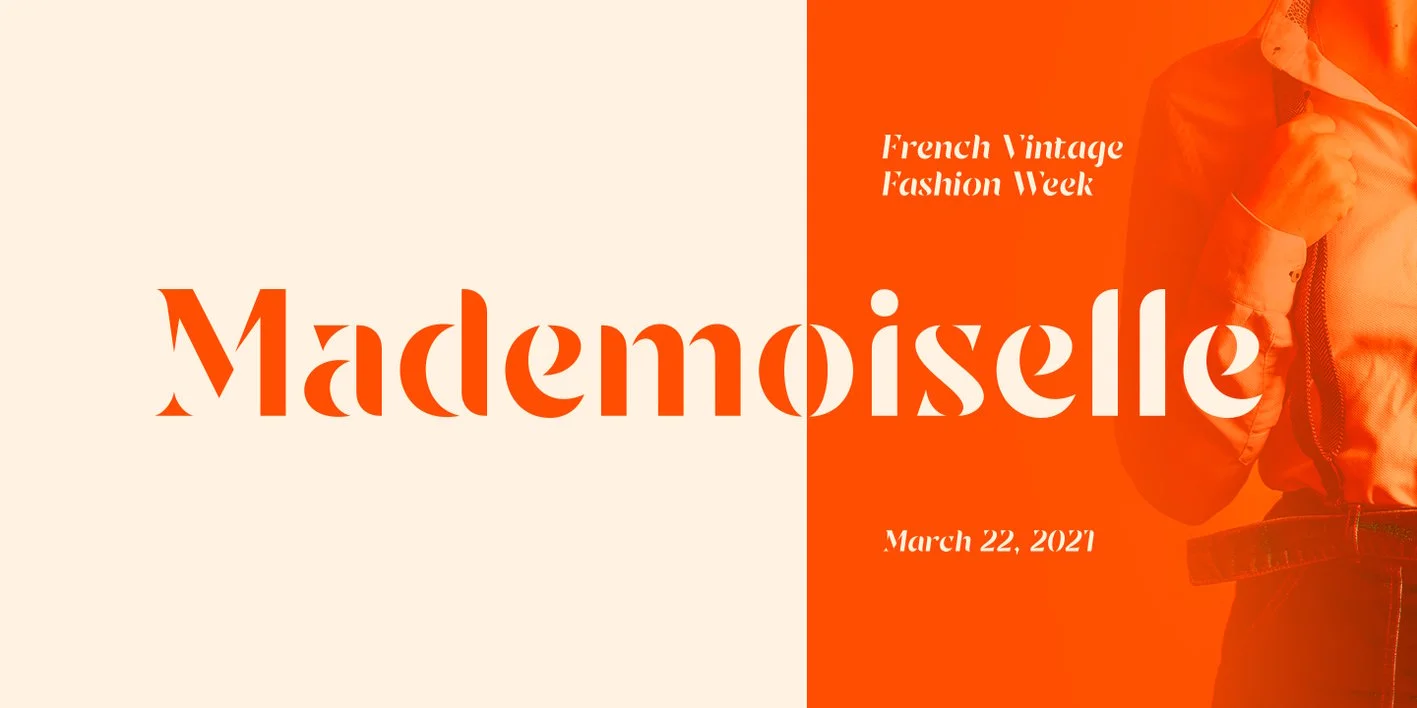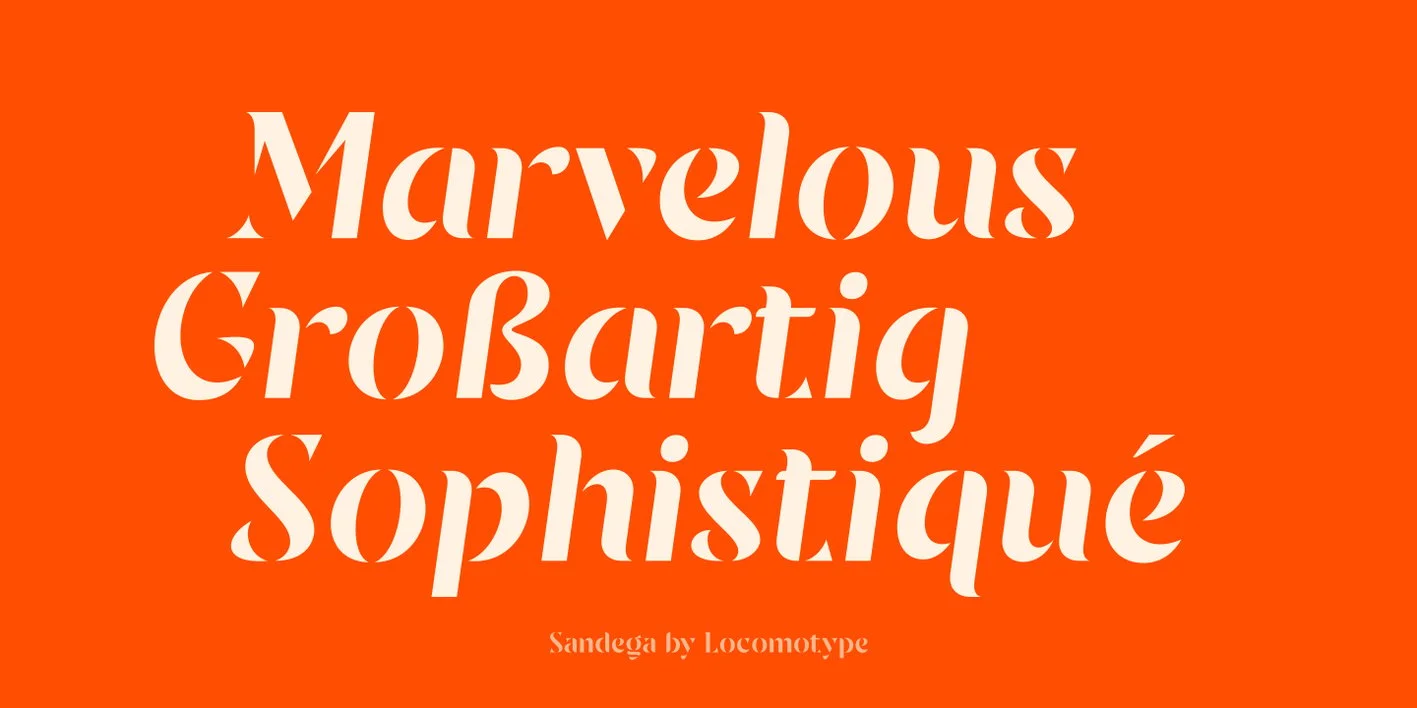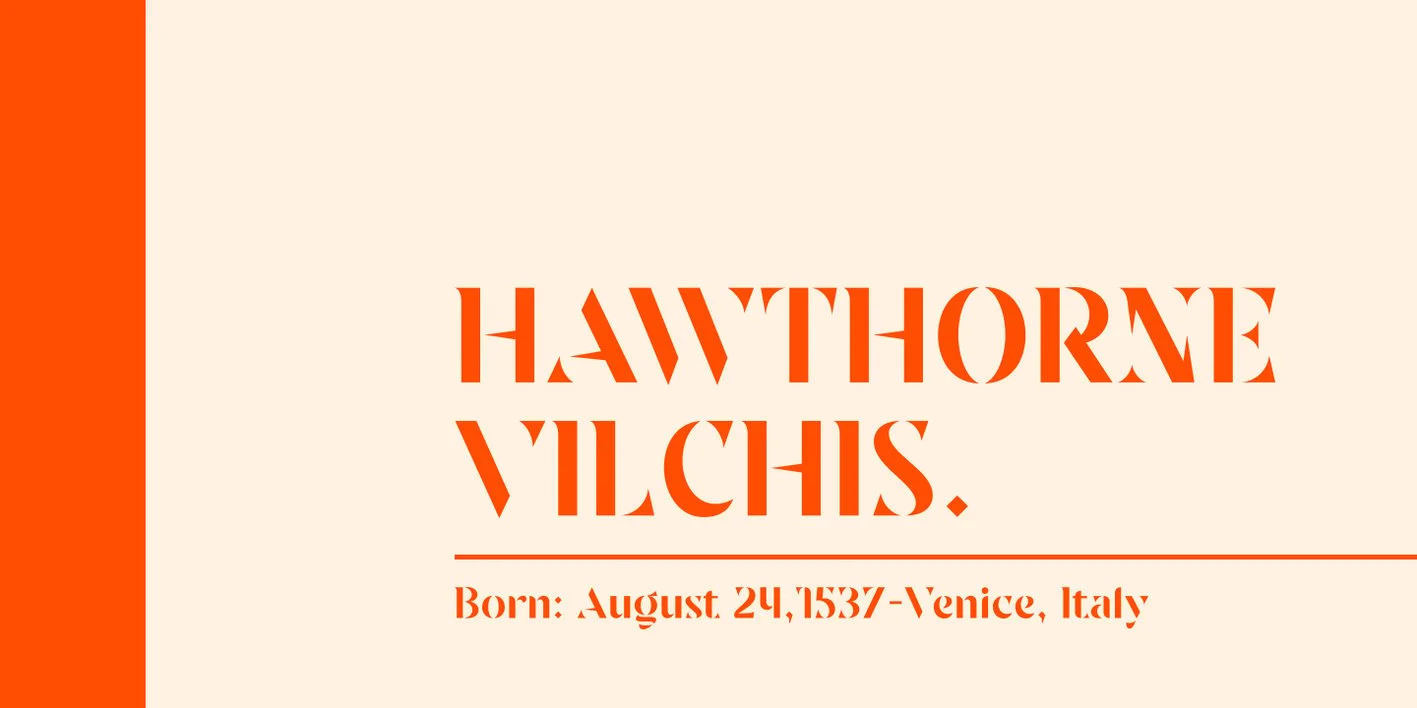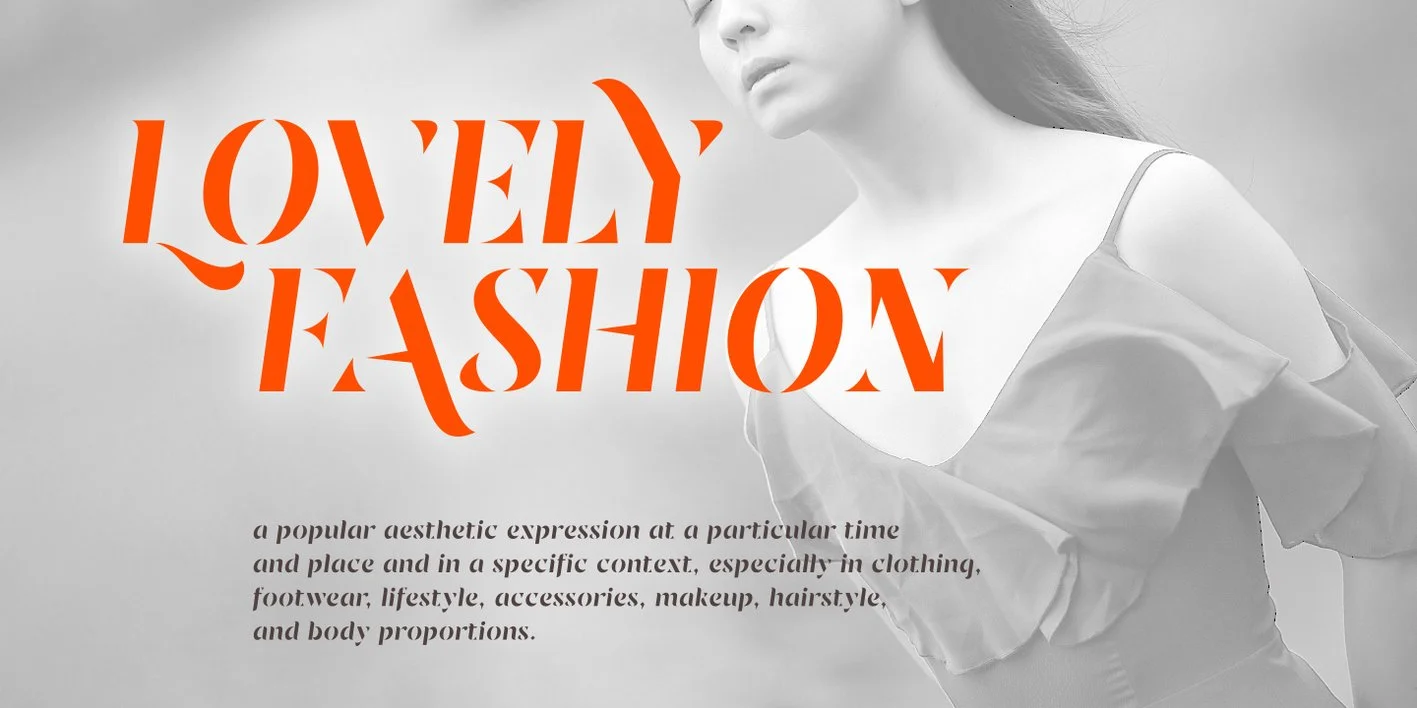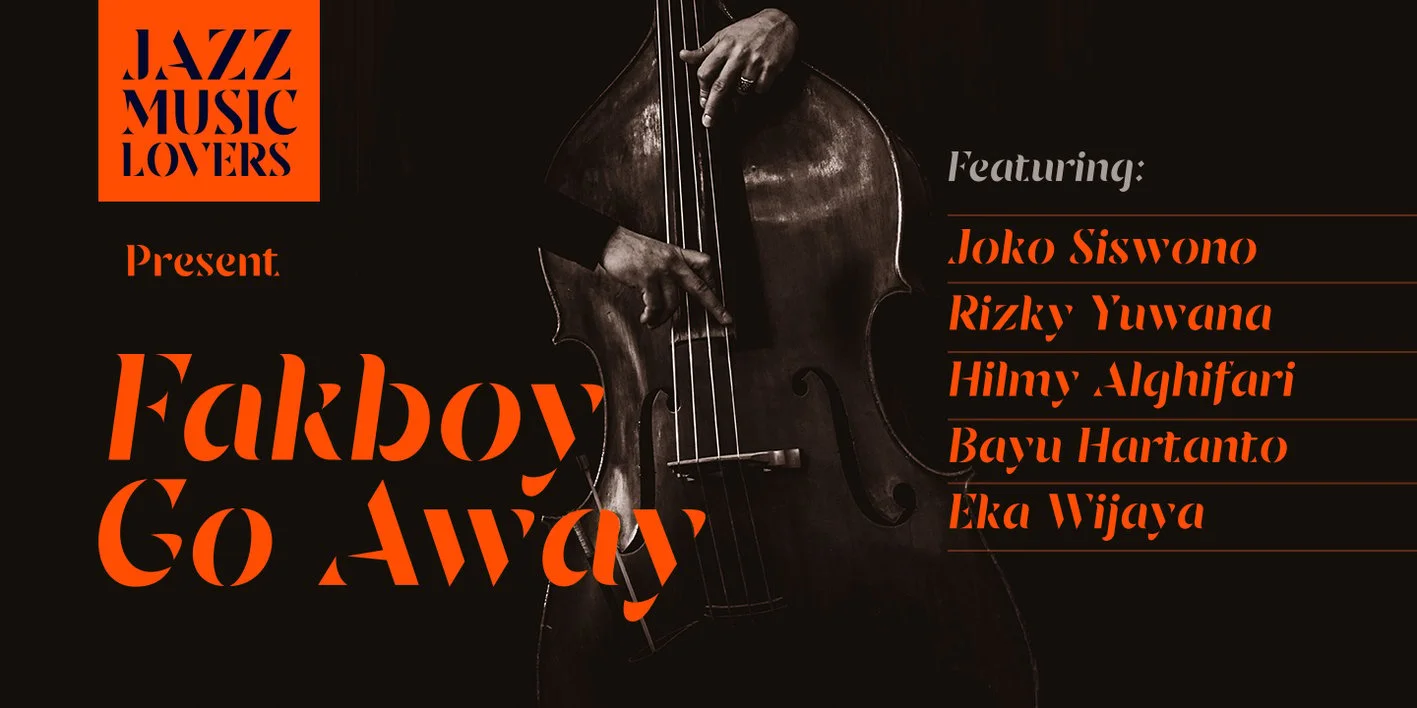
Sandega Font
When a design brief calls for both versatility across print and screen contexts and immediate visual impact, type choices matter — Sandega answers that brief. The typeface brings a versatile sensibility to a broad range of creative disciplines, with distinctive character without sacrificing readability that holds up whether the work is print-first or screen-first.
In practice, Sandega proves particularly effective for environmental graphics, poster creation, brand identity systems, editorial layouts, annual reports. Designers reaching for it find that the type decisions feel resolved rather than laboured — a useful quality when client timelines are tight.
The range of applications extends to logo design, packaging design, product labels, social media graphics. That breadth is deliberate: the proportions and spacing were stress-tested across a wide range of mock briefs before the typeface was finalised.
At smaller sizes the design retains its character without becoming cluttered. This resilience across scales makes Sandega equally suitable for a business card and a billboard — a useful property when assets must scale across a campaign.
Independent studios handling packaging and editorial work find Sandega a reliable choice for projects that demand both personality and restraint. The design avoids the self-conscious quirkiness that dates quickly, settling instead for considered distinctiveness that holds up over time.